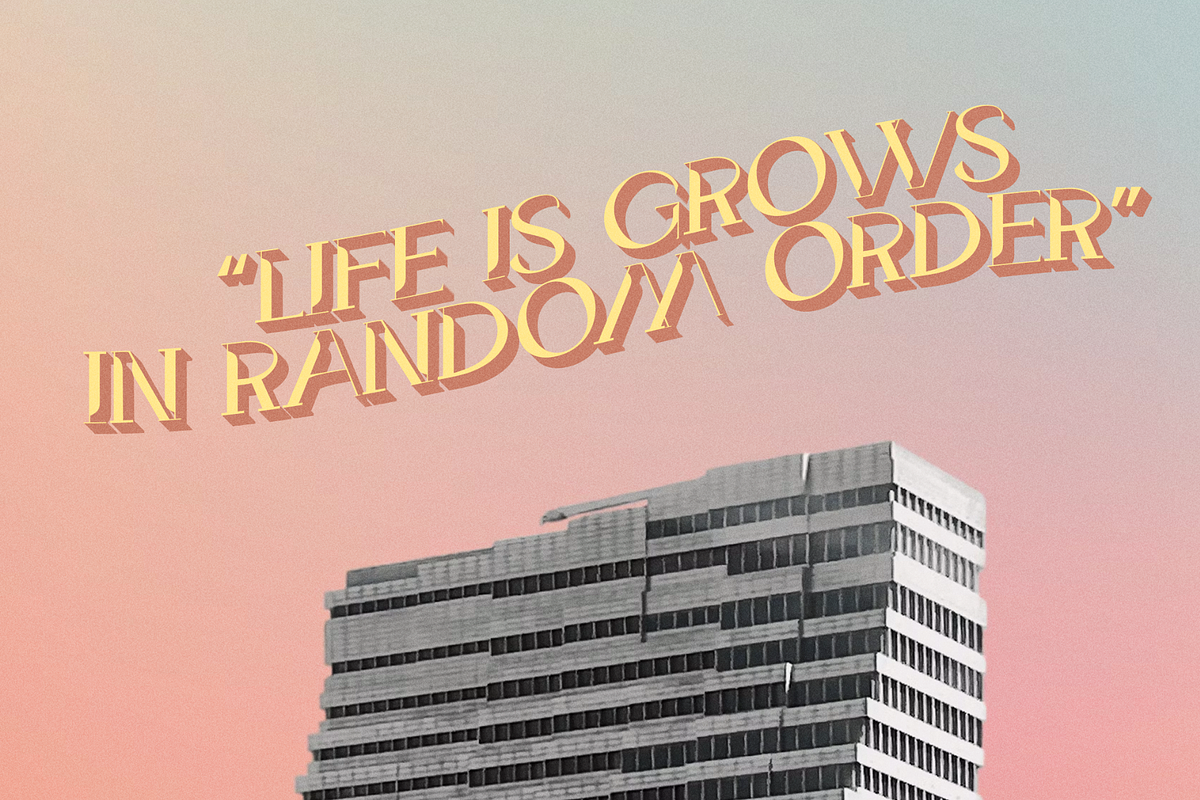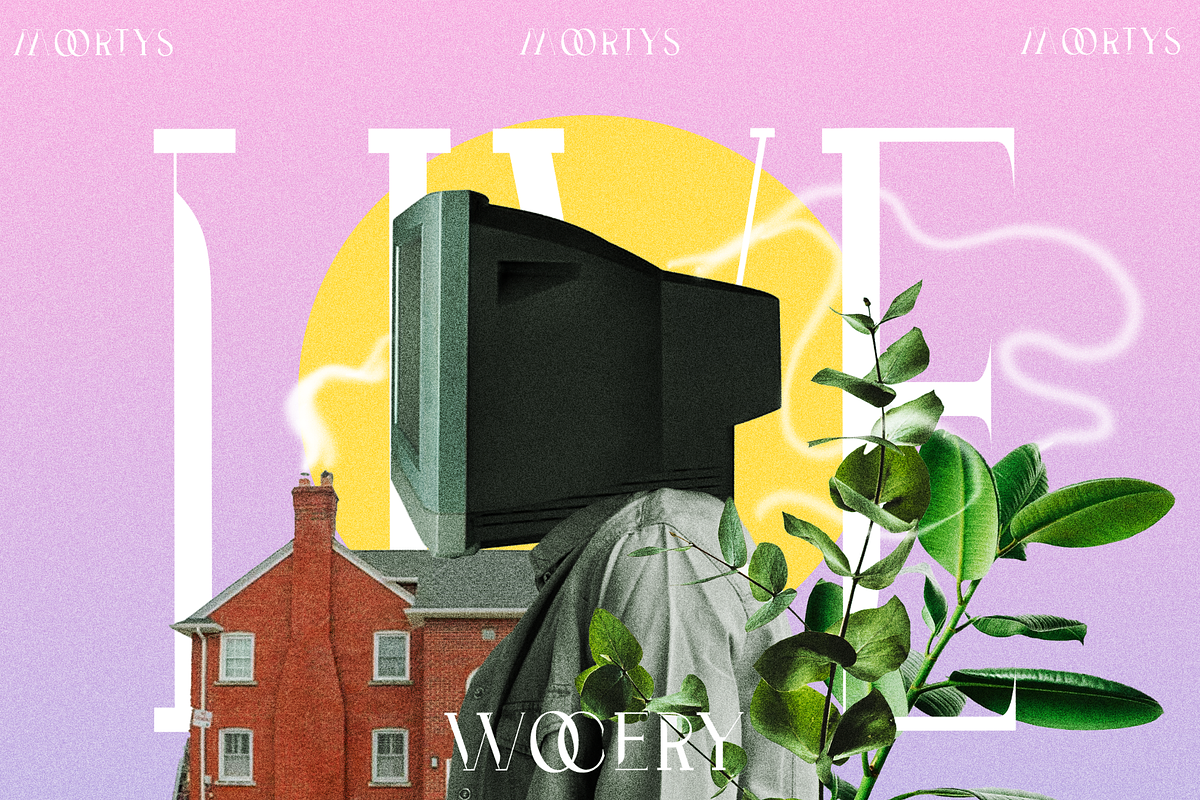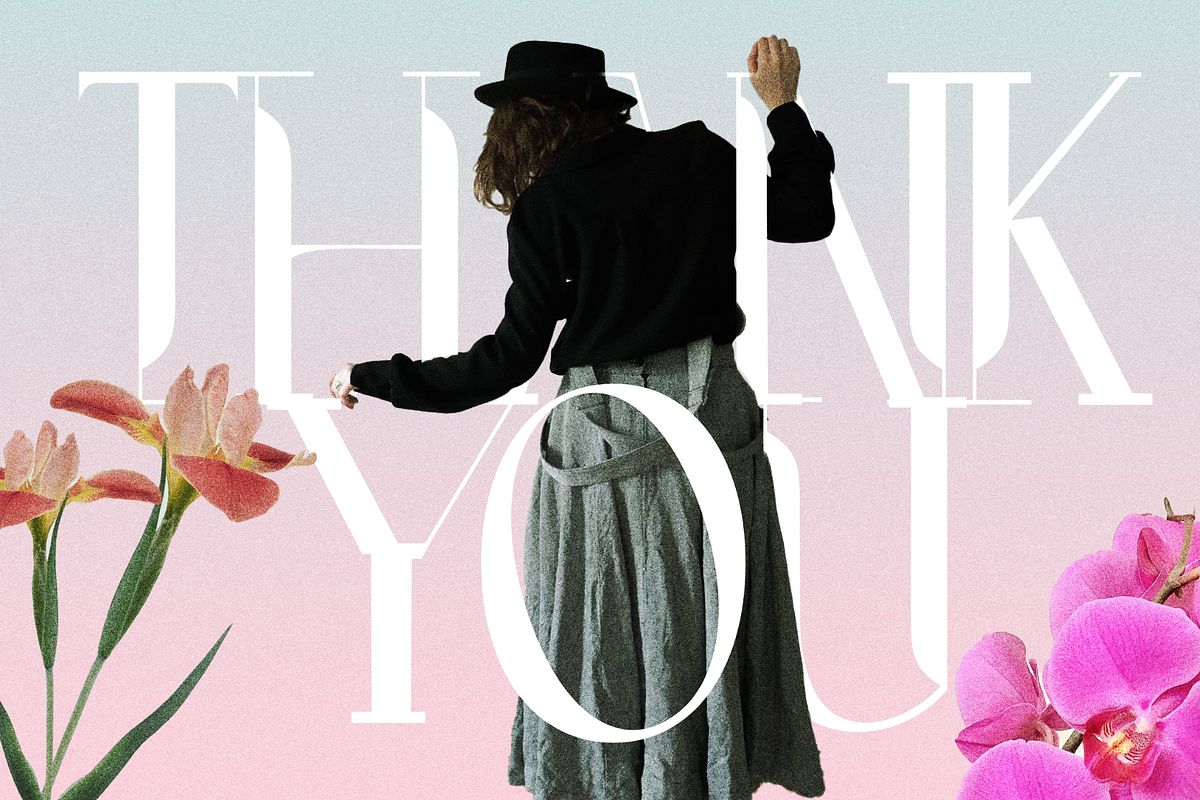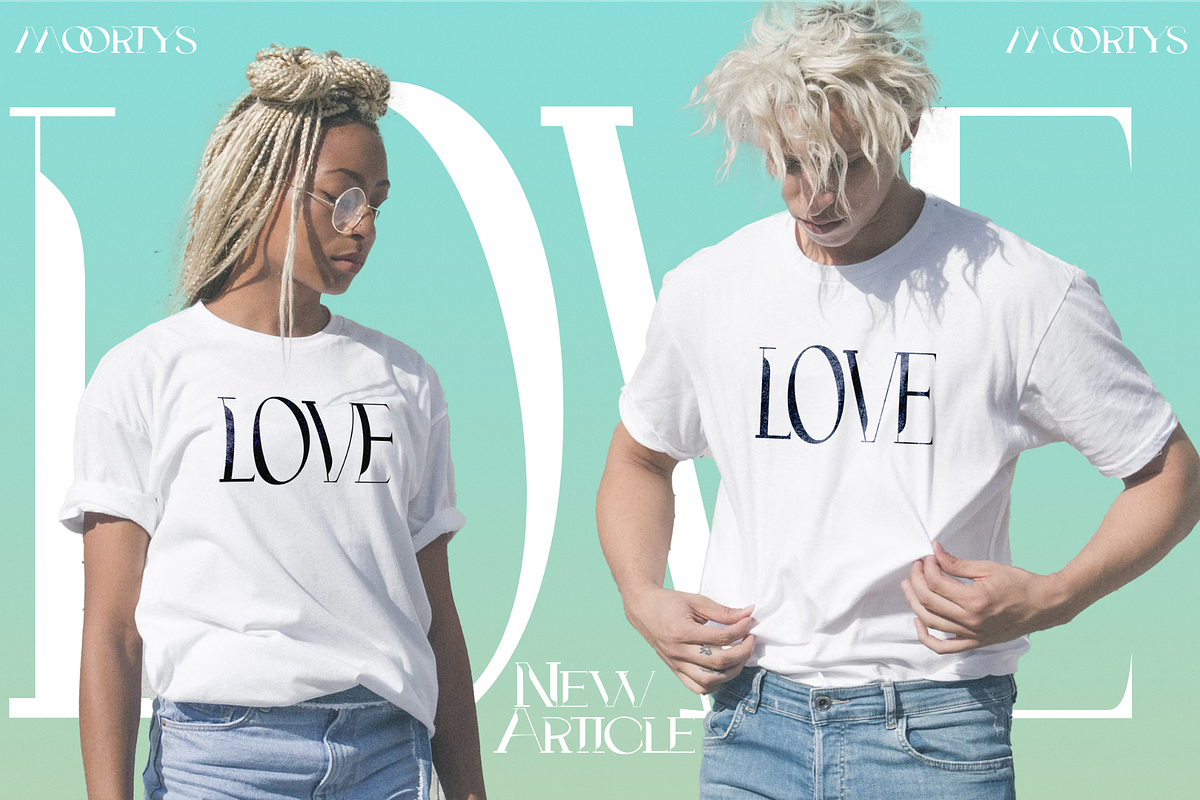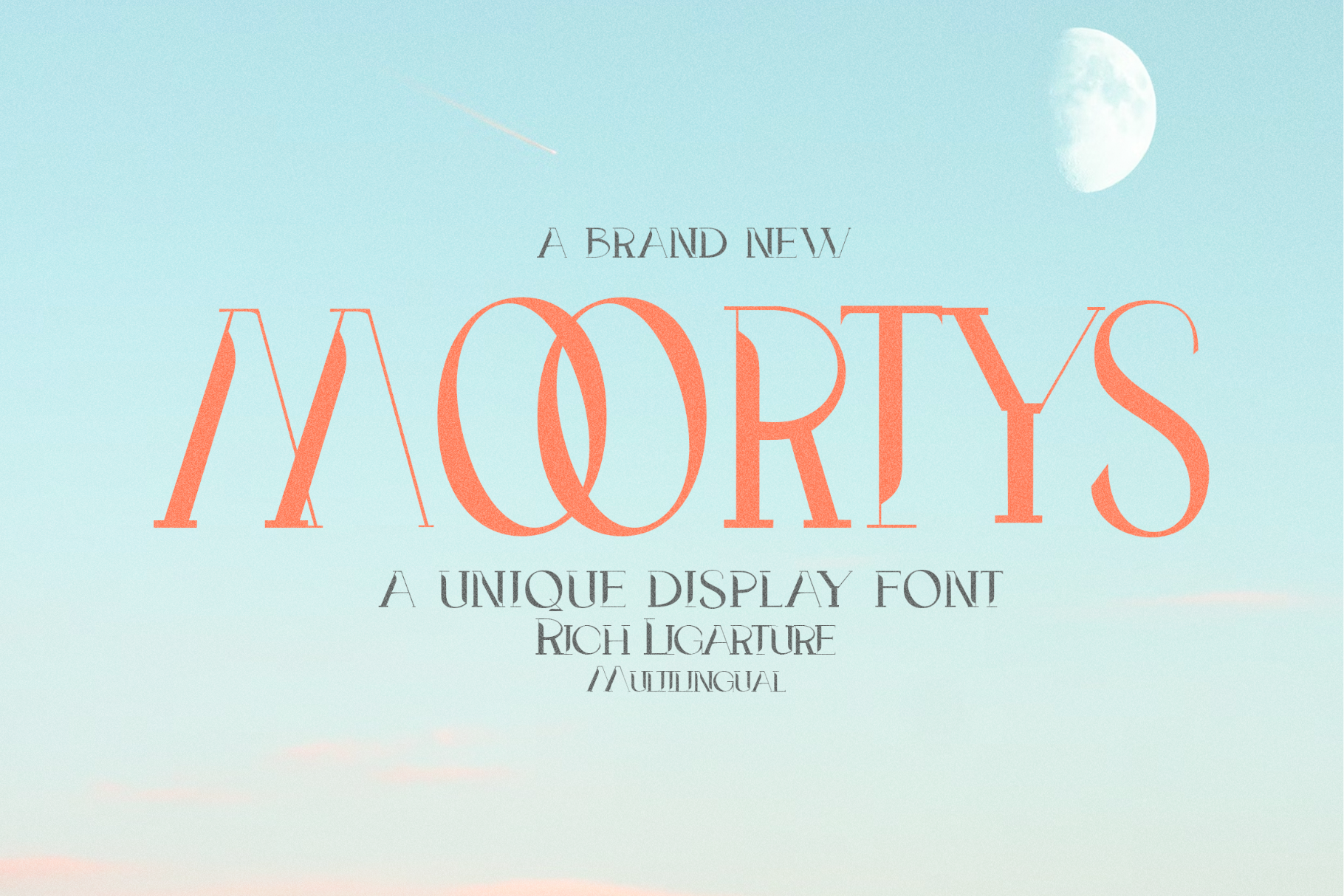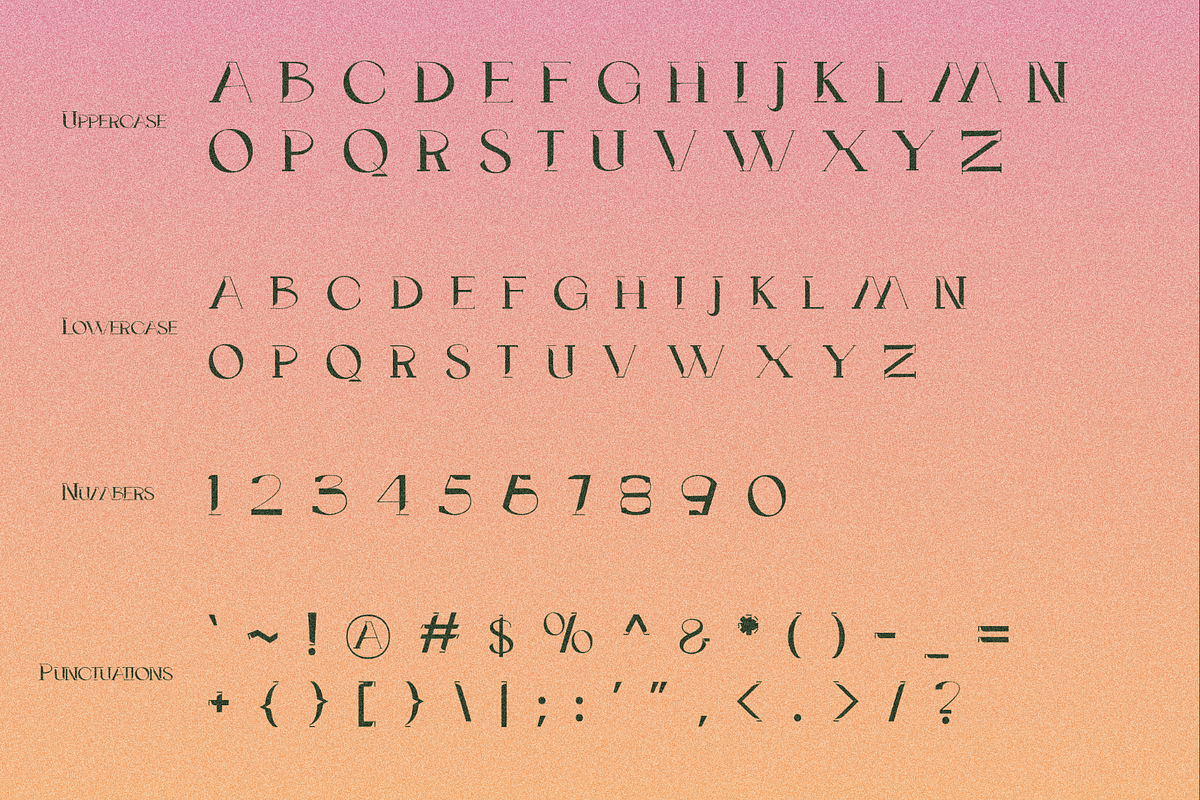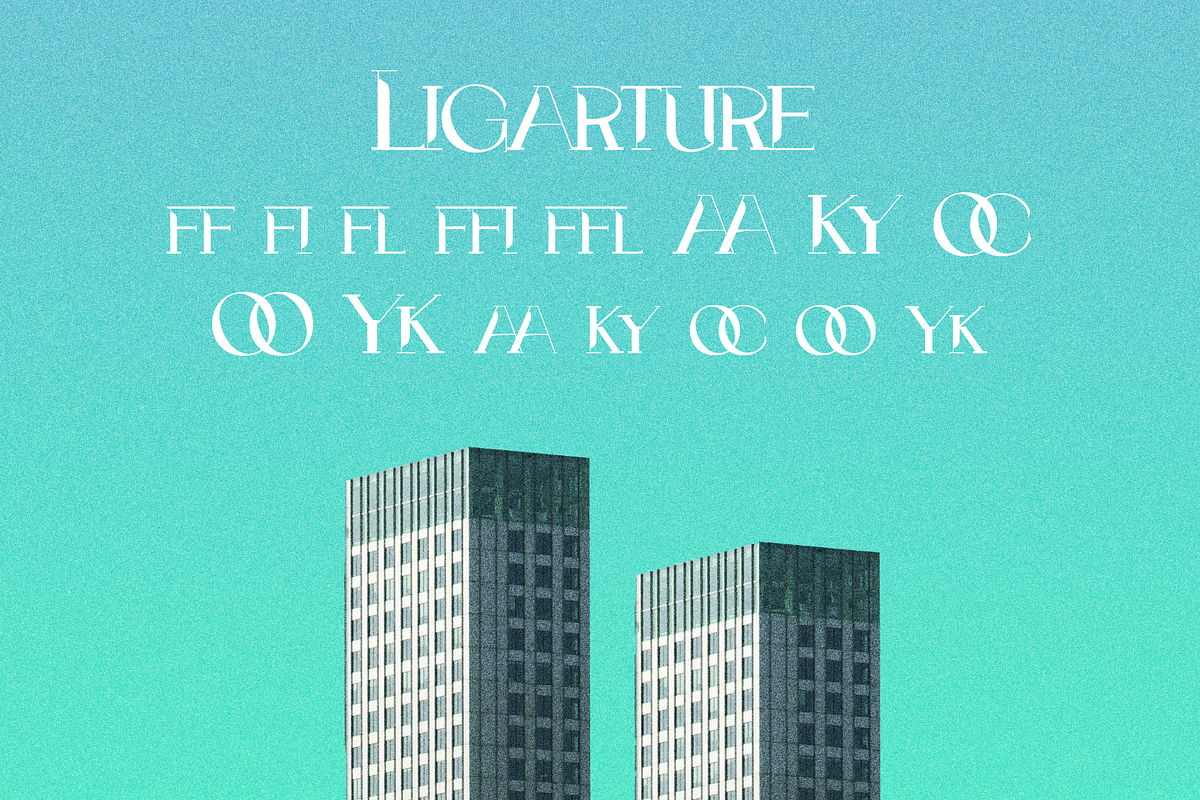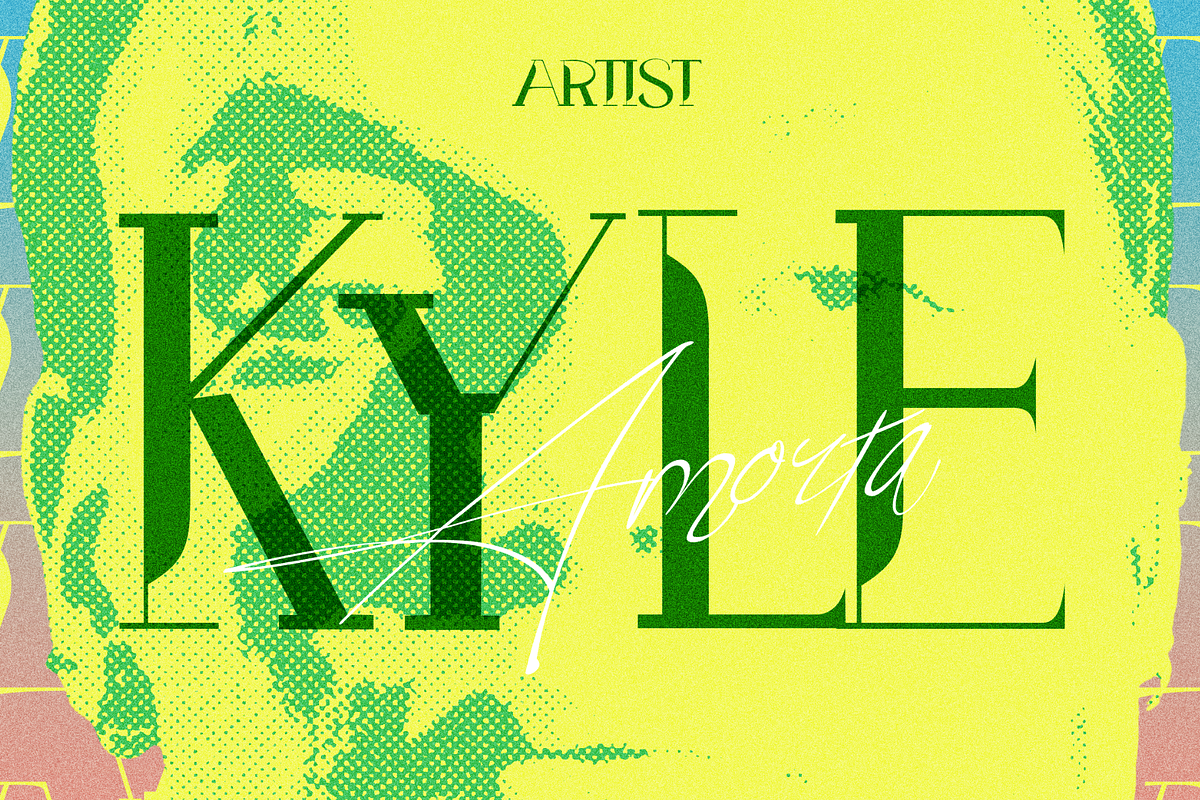
Moortys - Unique Display Font
Unveiling Moortys, a one-of-a-kind display font exuding an elegant, contemporary vibe. This bold creation is available in six dynamic forms: Expanded, Expanded Italic, Regular, Italic, Tall, and Italic Tall. Ideal for use in branding, typography, gaming, arts and crafts, and various font needs. With Moortys’ signature allure and adaptability, watch your designs reach new heights.